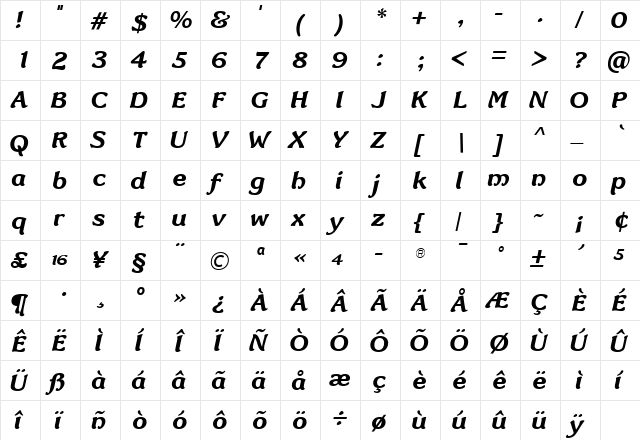
TFBrynMawr Bold
| Year | 1980 |
Design Context for TFBrynMawr Typeface
TFBrynMawr takes a measured approach to typography — its balanced proportions and neutral character make it a reliable workhorse for both digital and print work. Its bold stroke weight gives it real presence on the page.